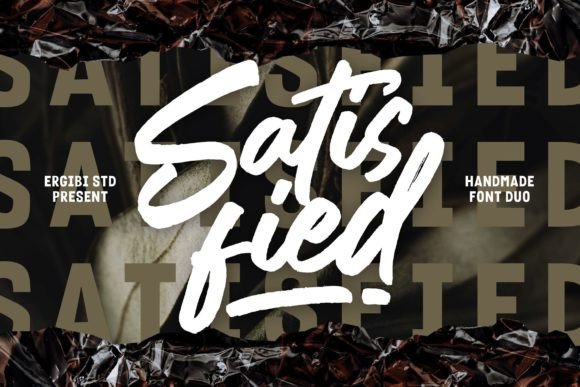
Welcome to the world of Satisfied Font, where penmanship meets elegance. Designed by the esteemed ergibi studio, this font family is the epitome of creativity, allowing you to leave an everlasting impression with every word you write. Satisfied Font is a magical blend of a handwritten brush font and a sleek sans serif, resulting in a sophisticated duo that captivates audiences.
Immerse yourself in the artistry of Satisfied Font and discover the limitless possibilities it brings to your digital creations. Whether crafting alluring logos, captivating social media posts, or adding a personal touch to your designs, this font family exudes elegance and charm, elevating your content to new heights.
Explore the depths of Satisfied Font's characters and witness how each letter is a work of art. The handwritten brush font dances across the screen with a natural, fluid motion, while the sans serif counterpart adds a touch of modern elegance. Together, they create a harmonious balance that draws the eye and leaves a lasting impact.
With Satisfied Font, you're not just downloading a font; you're unlocking a world of creativity and imagination. Unleash your inner artist and watch your designs come to life with this font's captivating allure. From enchanting wedding invitations to stunning branding projects, Satisfied Font is your ticket to design excellence.